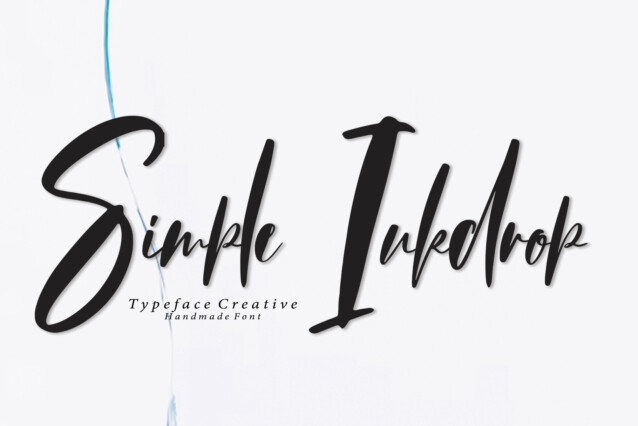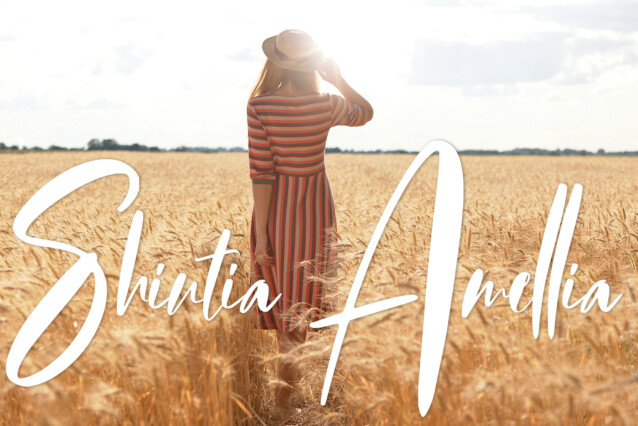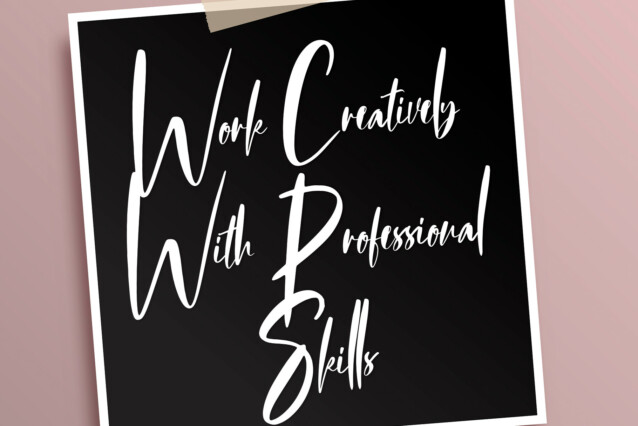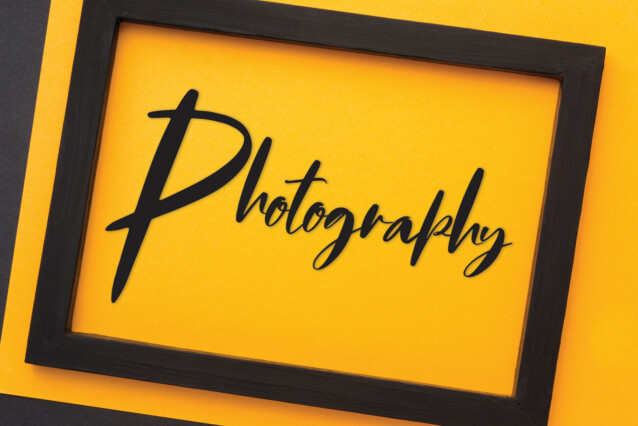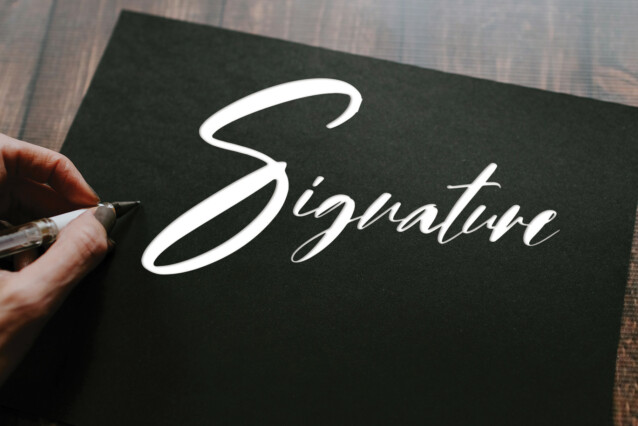
Simple Inkdrop Script Font
Simple Inkdrop Script Font is a beautiful handwritten script font. Grab this lovely typeface and use it for logos, quotes, covers, branding, invitations, cards, and much more.